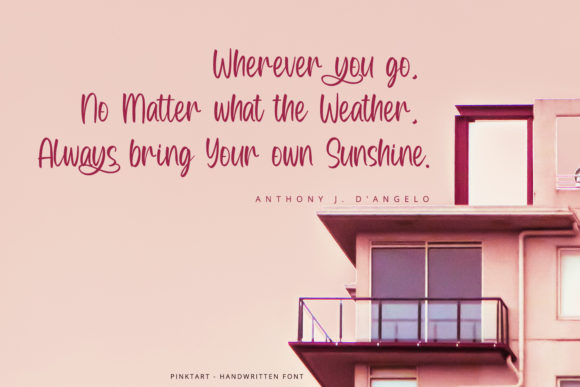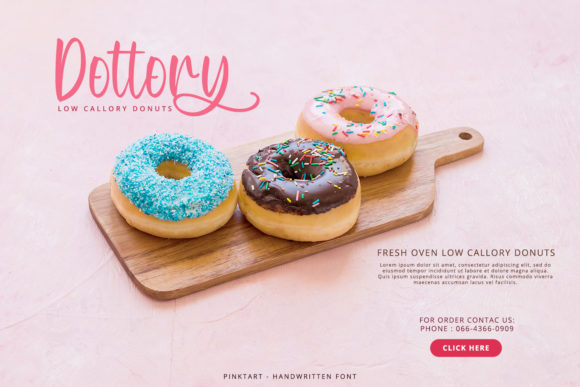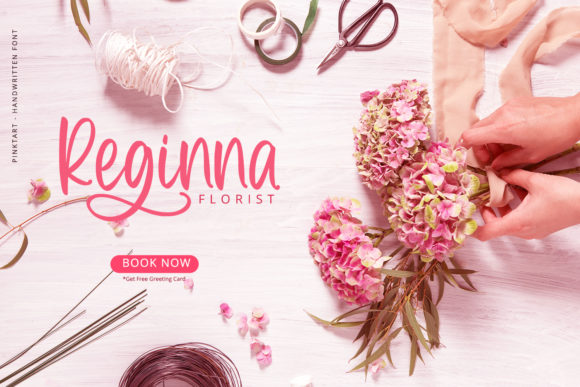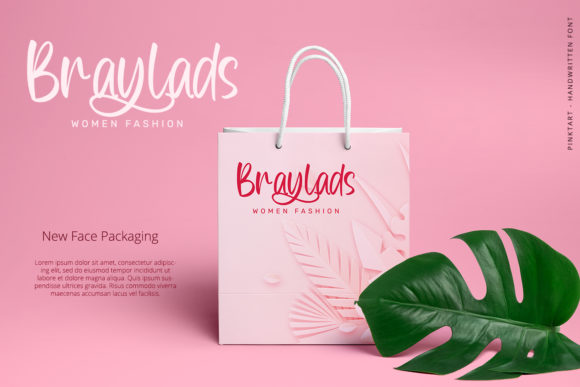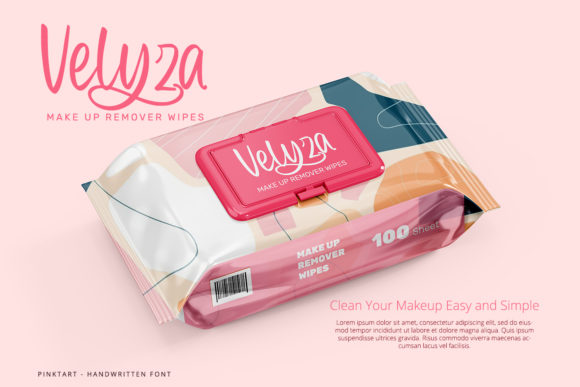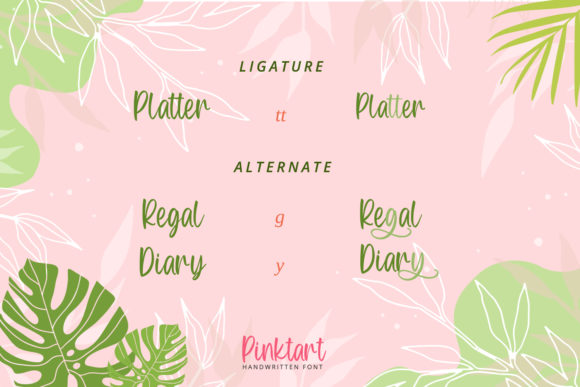
Introduction to Pinktart Font
Pinktart is a lovely handwritten font with a natural and unique design.
The font is suitable for your branding projects, printing, logos and wedding invitations and so much more .